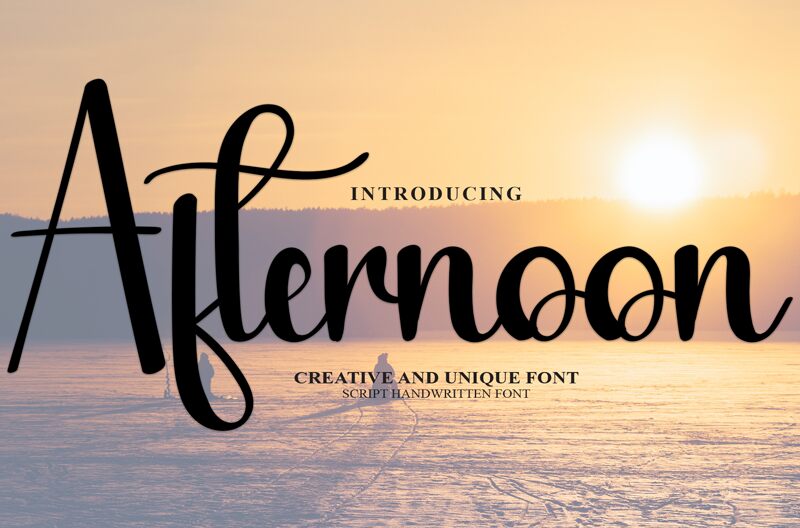
Afternoon
Afternoon is a captivating handwritten font crafted by designer Andi Moz. Its fluid, cursive strokes evoke a sense of effortless elegance, making it an ideal choice for a wide range of design applications.
The font's organic, yet refined aesthetic lends itself beautifully to branding, editorial layouts, and even wedding invitations, where its graceful calligraphy-inspired style can elevate the overall visual appeal.
Afternoon's versatility allows it to seamlessly transition from playful and whimsical to sophisticated and timeless, making it a valuable addition to any designer's typographic toolkit.